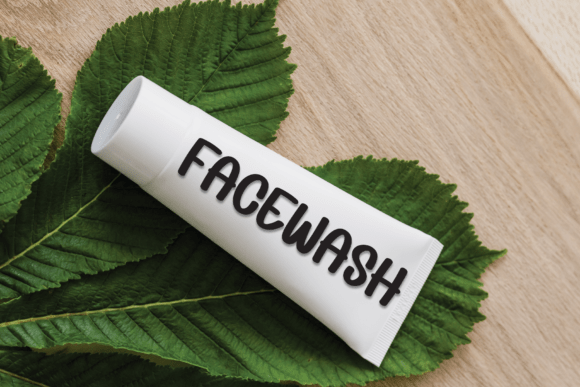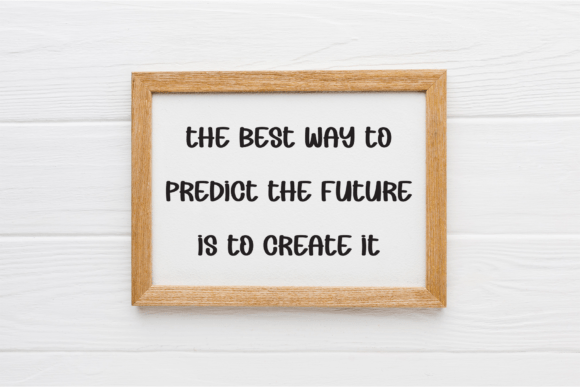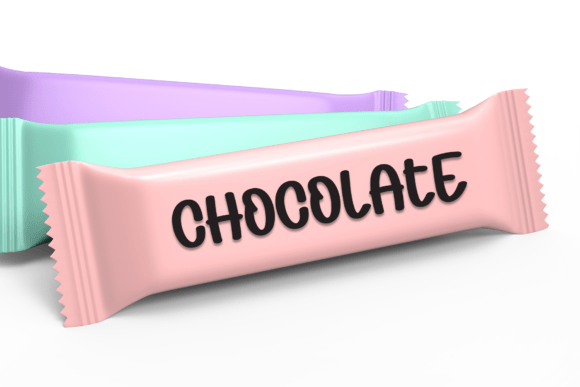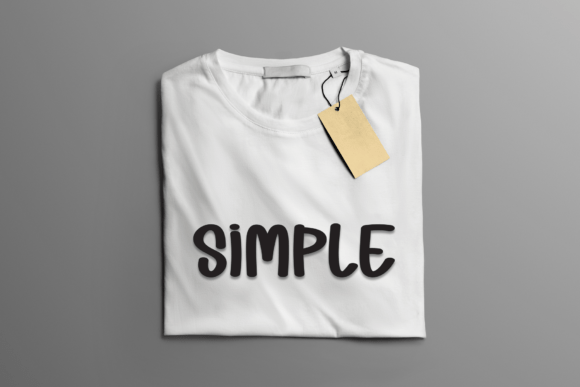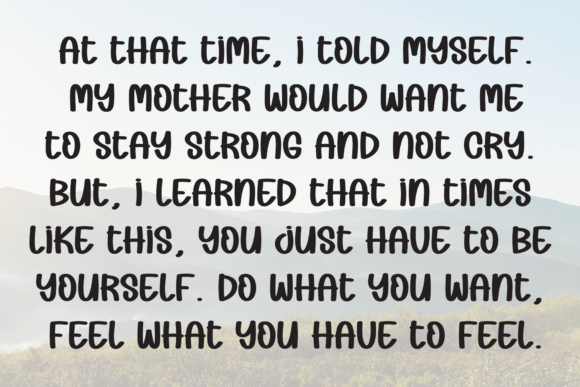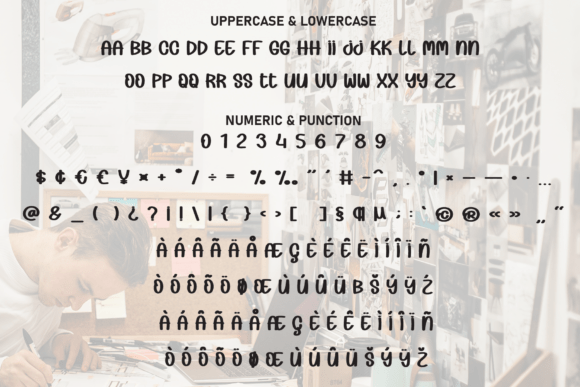
Introducing Designer Vibes Font: Elevate Your Designs with a Fresh and Friendly Touch
Are you tired of using the same old fonts in your designs? Look no further than Designer Vibes, a casual and neat display font that’s sure to bring a fresh and friendly vibe to your projects. With its clean lines and relaxed structure, Designer Vibes is perfect for a wide range of applications, from packaging and posters to social media graphics and more.
The Perfect Blend of Style and Clarity
Designer Vibes is all about approachability and charm. The font’s design is carefully crafted to add a touch of personality to your projects while maintaining a polished appearance. Whether you’re working on a branding campaign, creating eye-catching packaging, or designing engaging social media graphics, Designer Vibes is the perfect choice.
One of the standout features of Designer Vibes is its clean lines and relaxed structure. This gives the font a sense of ease and approachability, making it perfect for designs that need to connect with their audience on a personal level. At the same time, the font’s clarity ensures that your message is communicated effectively, even at a glance.
Designer Vibes is an incredibly versatile font that can be used in a wide range of design applications. Here are just a few ideas to get you started:
- Packaging Design: Add a touch of personality to your product packaging with Designer Vibes. The font’s clean lines and relaxed structure make it perfect for labels, tags, and other packaging materials.
- Poster Design: Create eye-catching posters that grab attention with Designer Vibes. The font’s bold and friendly vibe is sure to draw in your audience.
- Social Media Graphics: Take your social media graphics to the next level with Designer Vibes. The font’s approachable design and polished appearance make it perfect for creating engaging and shareable content.
- Branding and Identity: Establish a strong brand identity with Designer Vibes. The font’s unique charm and clarity make it perfect for logos, business cards, and other branding materials.
Why Choose Designer Vibes Font?
With so many fonts to choose from, why should you choose Designer Vibes? Here are just a few reasons:
- Unique Style: Designer Vibes has a unique style that’s sure to set your designs apart from the crowd.
- Versatility: The font is incredibly versatile and can be used in a wide range of design applications.
- Easy to Read: Designer Vibes is incredibly easy to read, even at small sizes.
- Polished Appearance: The font’s polished appearance ensures that your designs look professional and put-together.
If you’re looking for a font that can help you take your designs to the next level, look no further than Designer Vibes. With its fresh and friendly vibe, clean lines, and relaxed structure, this font is sure to become a staple in your design toolkit.
In conclusion, Designer Vibes font is a game-changer for designers and crafters looking to elevate their designs with a fresh and friendly touch. Its unique style, versatility, and polished appearance make it the perfect choice for a wide range of design applications. So go ahead, give Designer Vibes a try, and see the difference it can make in your designs.